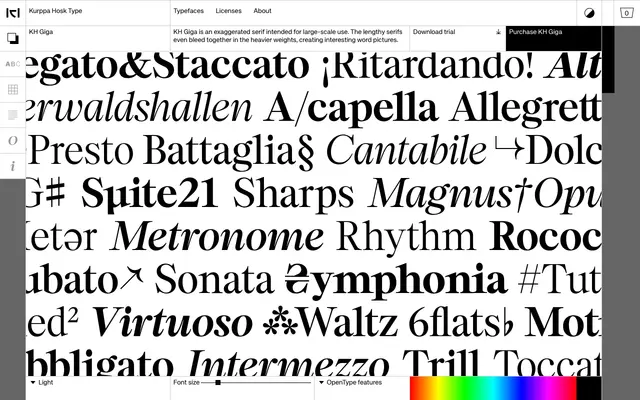
KH Giga specimen from Kurppa Hosk Type
An exaggerated display serif designed for large-scale use, where its elongated serifs bleed together at heavier weights to produce distinctive word-level shapes.
Five weights from Light to Black, each with a matching italic, built around dramatically extended serifs that at the heaviest settings merge between letterforms to create unusual typographic textures. The effect is intentional and structural rather than decorative, altering the visual rhythm of words set in Black. Suited to headlines, posters and editorial contexts where typographic spectacle is part of the brief.
An exaggerated serif with elongated, dramatic serifs that merge in heavier weights to form ligature-like word pictures; the extreme proportions and deliberate optical spectacle place it firmly in the display category.